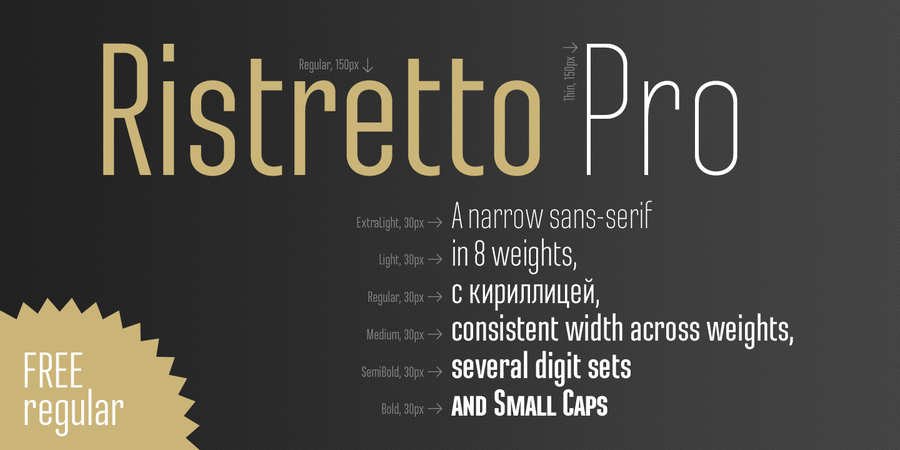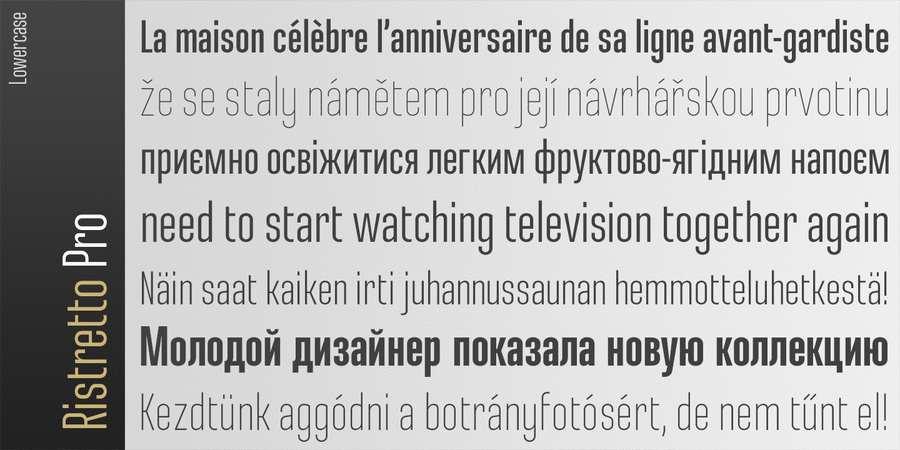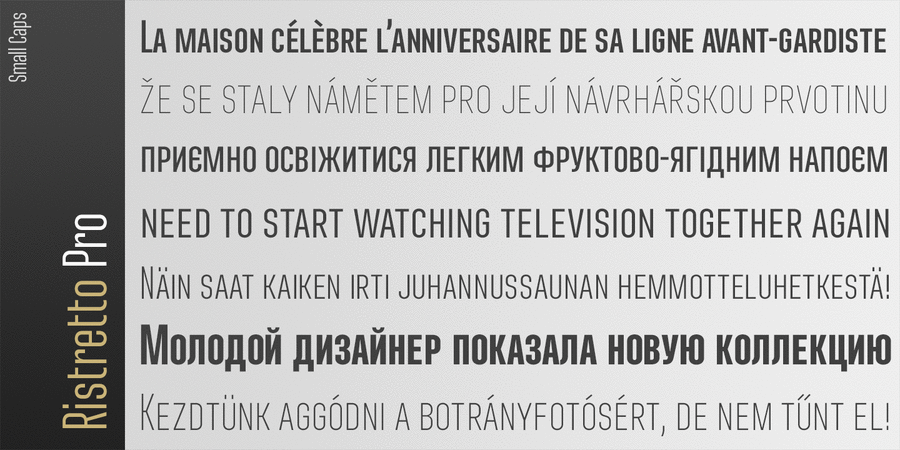
About Ristretto Pro
Ristretto Pro is an extremely narrow display sans-serif font family available in 8 weights. It features rich language support, 6 sets of figures and small caps. Ristretto Pro also comes with its slab-serif counterpart – Ristretto Slab Pro. Ristretto Pro was designed and released by Andriy Konstantynov in Mint Type foundry in 2013.
Features of font family Ristretto Pro